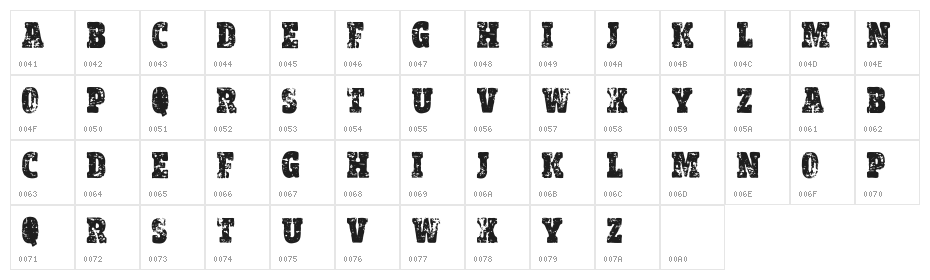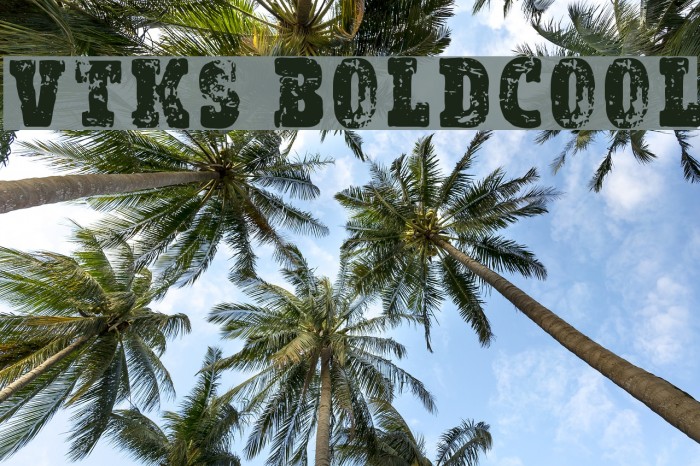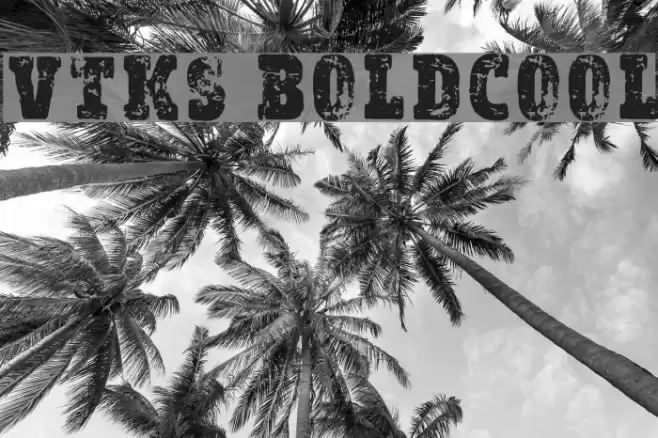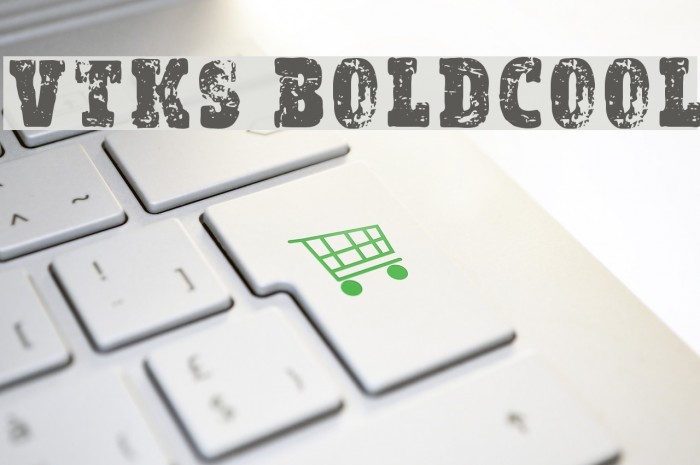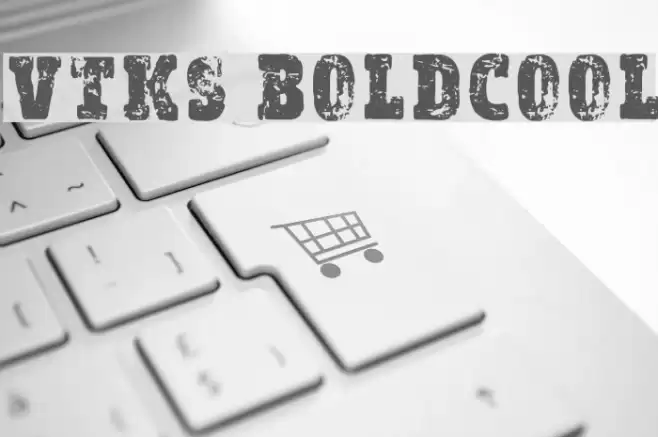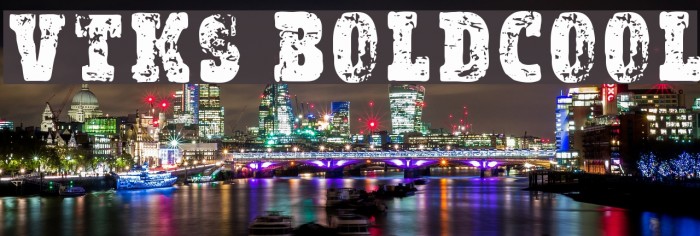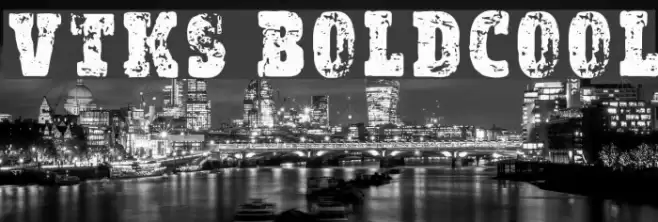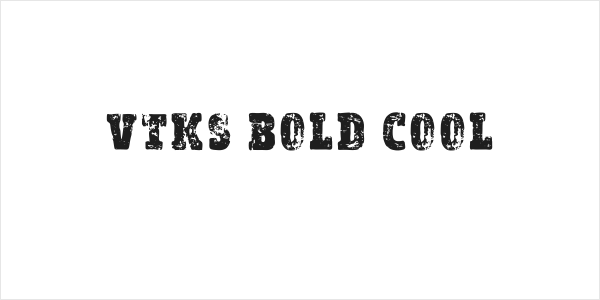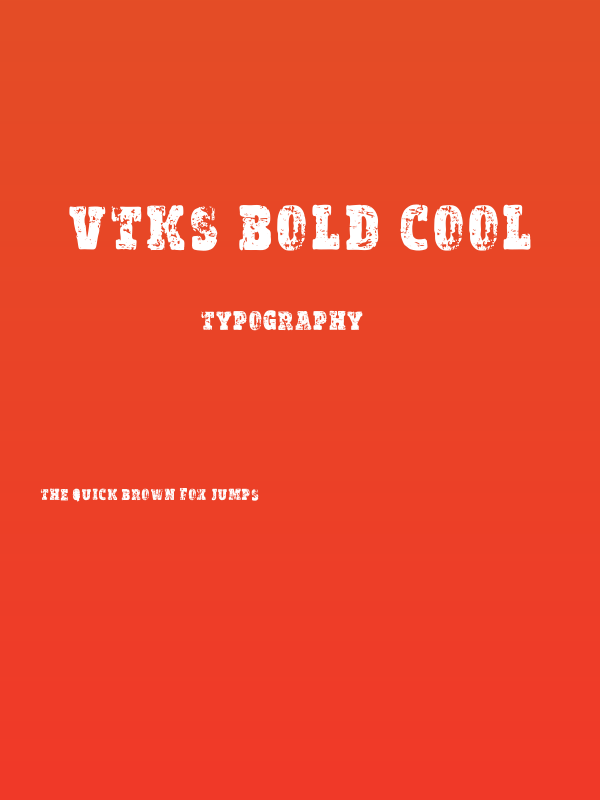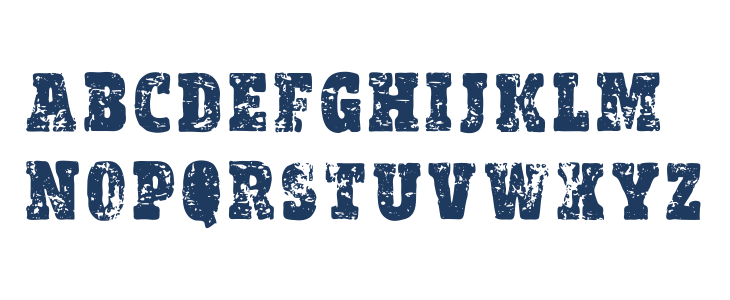
vtks Bold&Cool Font
vtks Bold&Cool Description
This font features a bold and distressed style, characterized by its rough, textured appearance that gives it a grunge or worn-out look. The uppercase letters are heavily stylized with uneven edges and a bold presence, making them stand out prominently. The texture within each character adds a dynamic and rugged feel, suitable for designs that require a strong, impactful visual statement. The font's unique style is reminiscent of vintage or industrial themes, providing a sense of authenticity and rawness. Its boldness ensures readability while the distressed elements add a layer of visual interest.